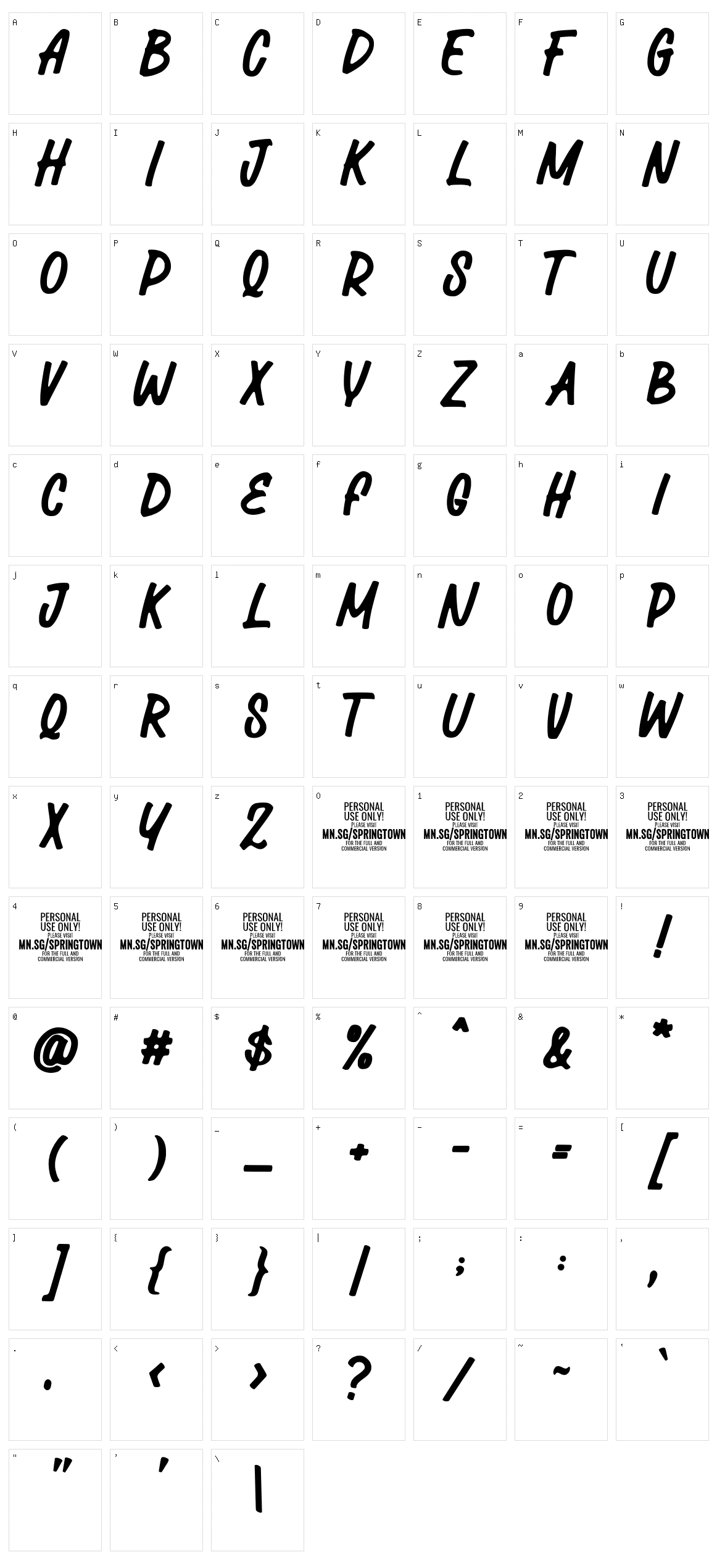
Springtown Market is a lively font inspired by the hustle and bustle of bustling marketplaces.
With its handwriting-style design, it carries the fluidity and personal touch of a marker pen, bringing an authentic, handcrafted feel to your designs.
Its active strokes and energetic flair embody a sense of motion and vivacity, perfect for capturing the dynamic spirit of urban life. The vivid, bold characters of Springtown Market are designed to stand out, making a statement on any canvas. The slant in the letterforms adds a sense of urgency and forward motion, evoking the energy of a town in motion.
The font is built with advanced OpenType functionality and guaranteed top-notch quality, containing stylistic and contextual alternates, ligatures and more automatic and manual features; all to give you full control and customizability.
It has extensive lingual support, covering all Latin-based languages, from North Europa to South Africa, from America to South-East Asia. It contains all characters and symbols you'll ever need, including all punctuation and numbers.
Springtown Market is a creation of Mans Greback, a renowned font designer known for his ability to capture the essence of a concept in typographic form. His work often blends traditional techniques with modern flair, resulting in fonts that are both timeless and contemporary.